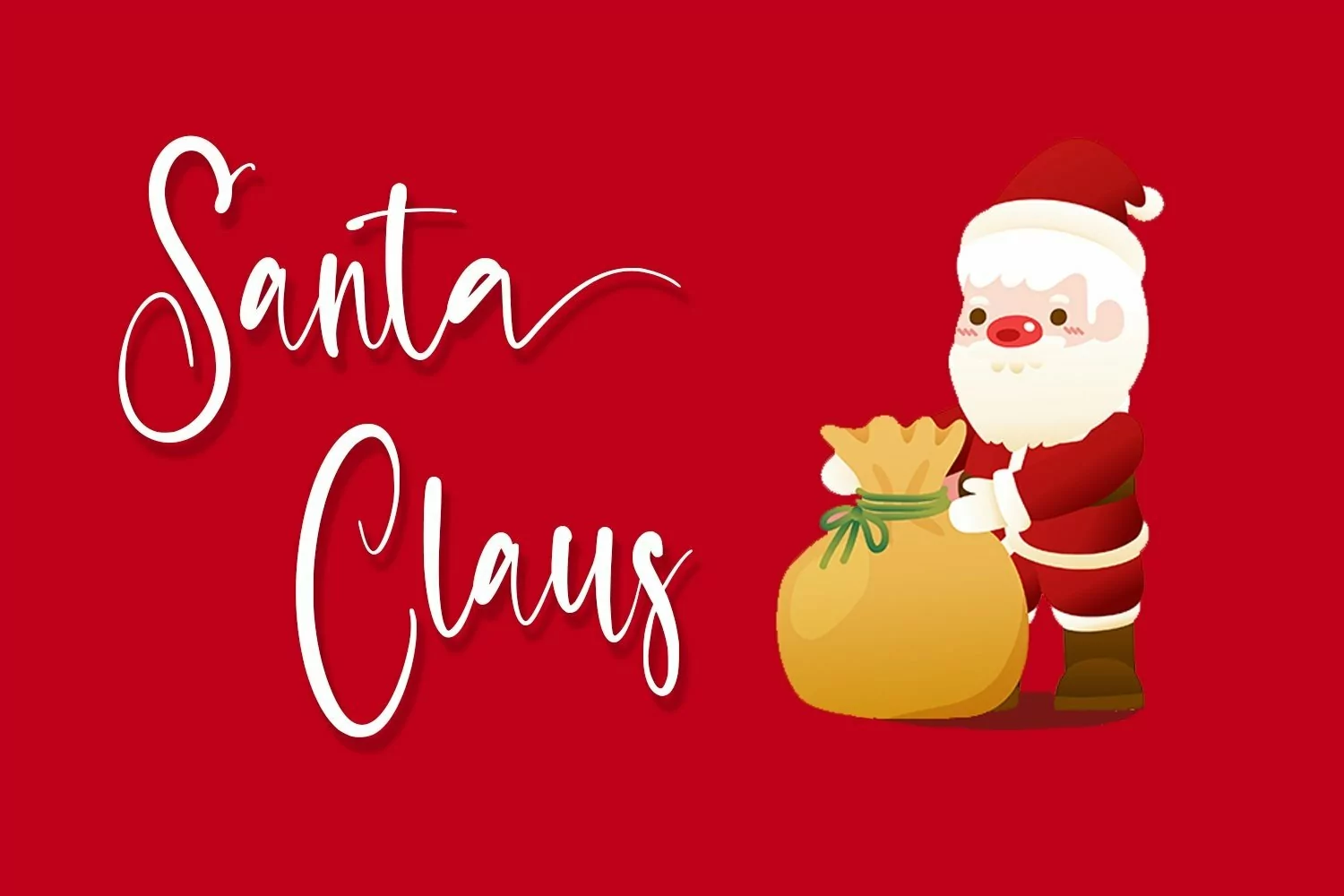
Web Font Celebrate - Christmas Calligraphy Font that contain lowercase, uppercase, symbol, and also support multi language. There’s a lot ligatures in this font. This Font also comes with ligatures, alternates and many more. this font suitable for fashion, branding, catalog and other design what you want.